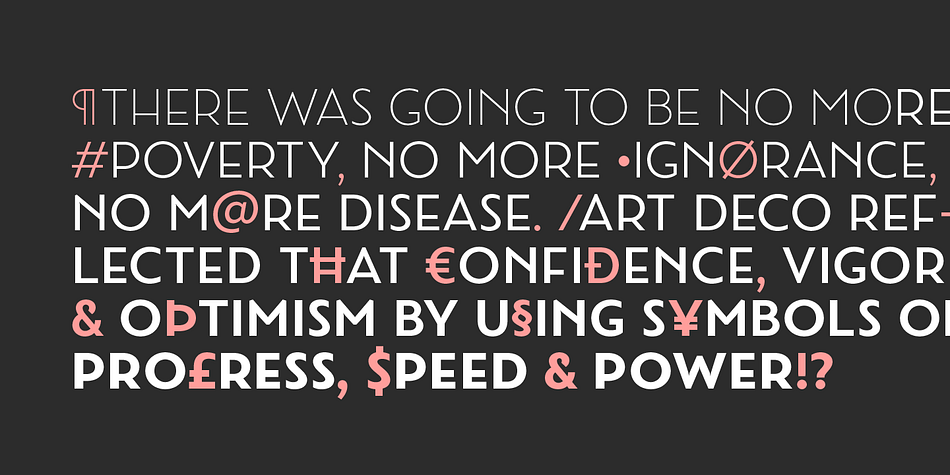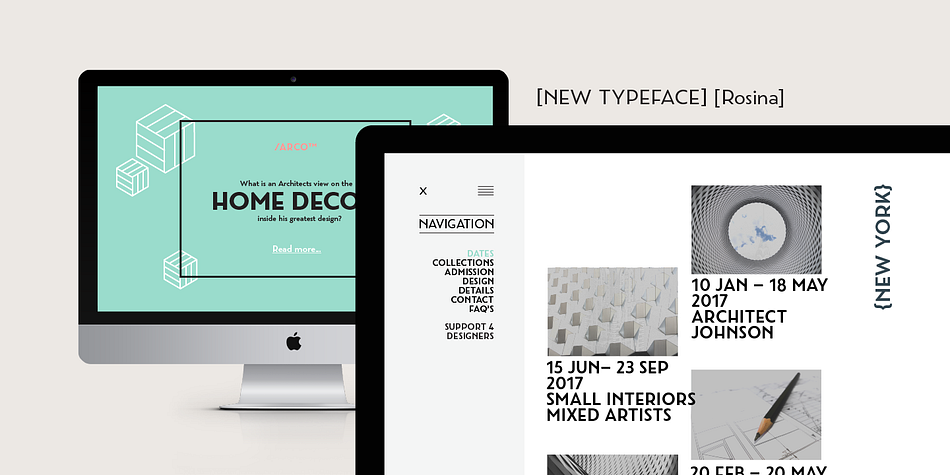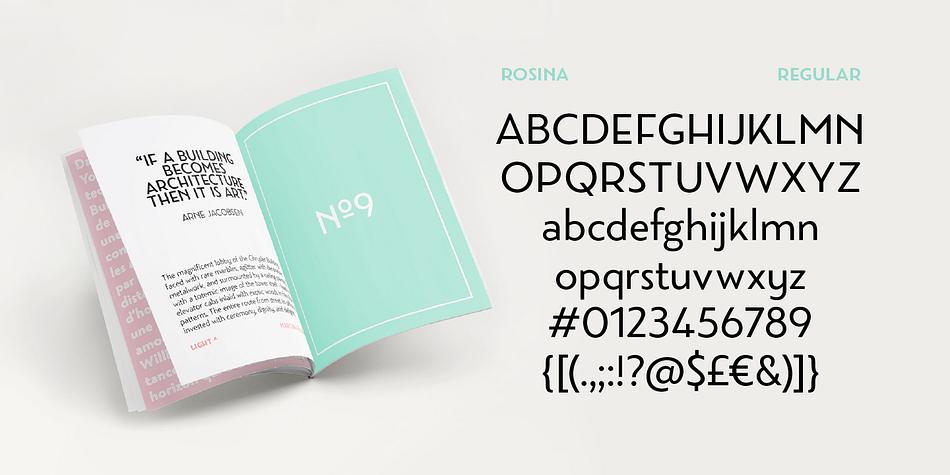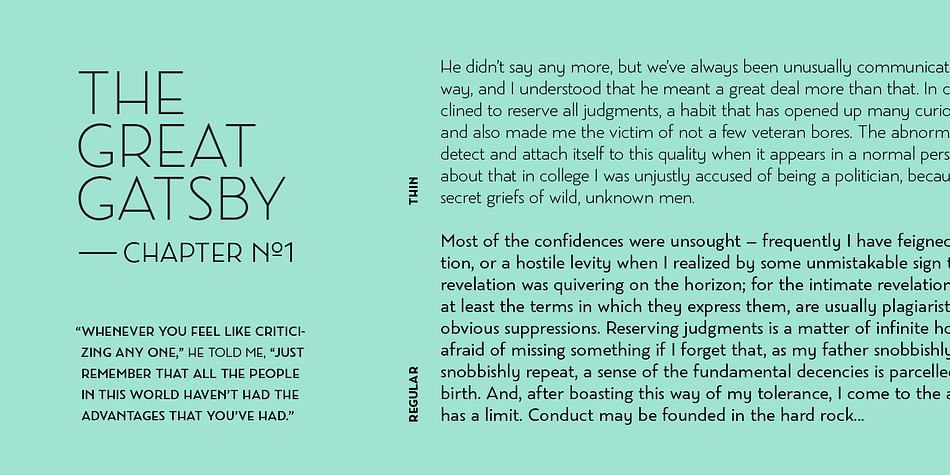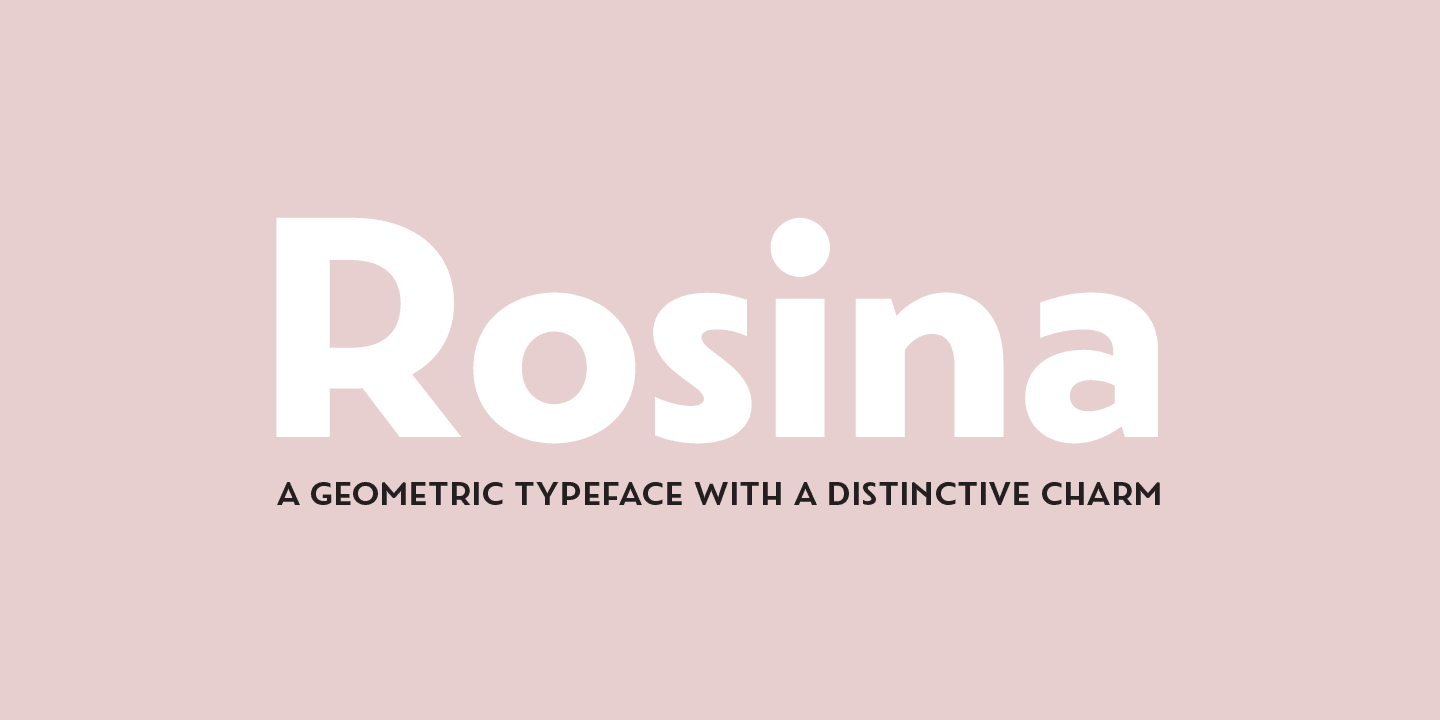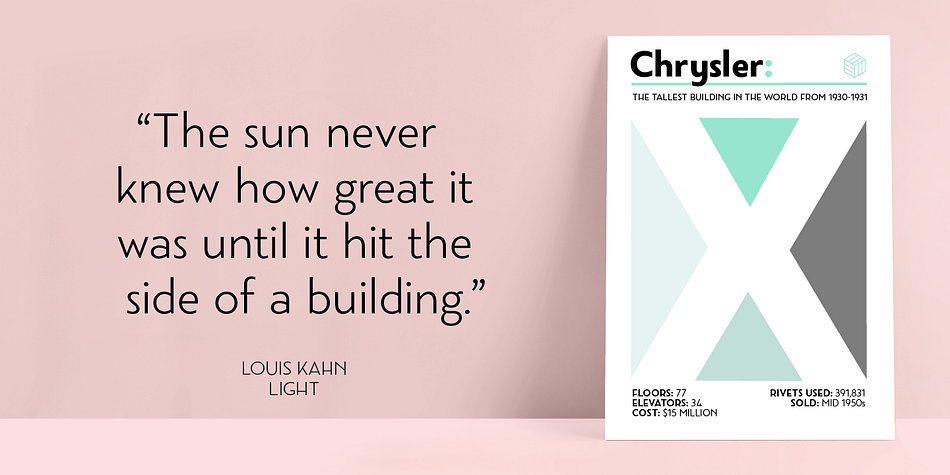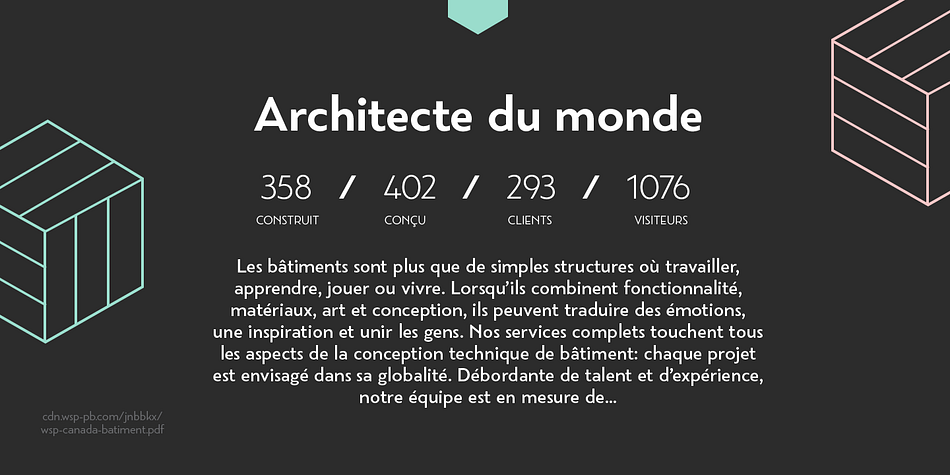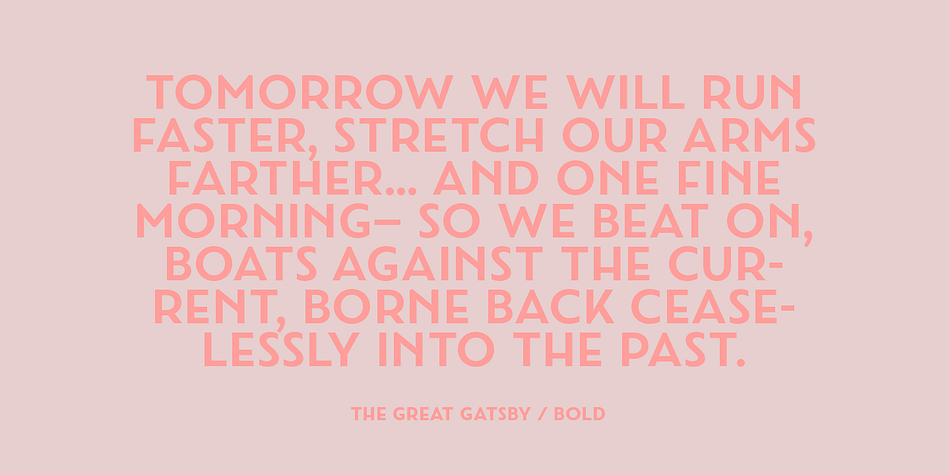
Designed by Rebecca Hurst, Rosina is a sans serif and art deco font family. This typeface has six styles and was published by Hashtag Type.
Rosina is a geometric typeface with a distinctive charm.
With a captivating fusion of dashing 1920s style and 21st Century sensibility, geometric forms have been taken and optically adjusted to create a sturdy typeface. Tall ascenders and descenders attempt to simulate architectural features of the Art Deco period, striving for a look of the future, nevertheless form always follows function. Rosina explores typographic boundaries and lends itself well to branding, posters and other display uses.
Full details include 6 weights from Thin to UltraBold and include a range of OpenType features such as case sensitive punctuation.